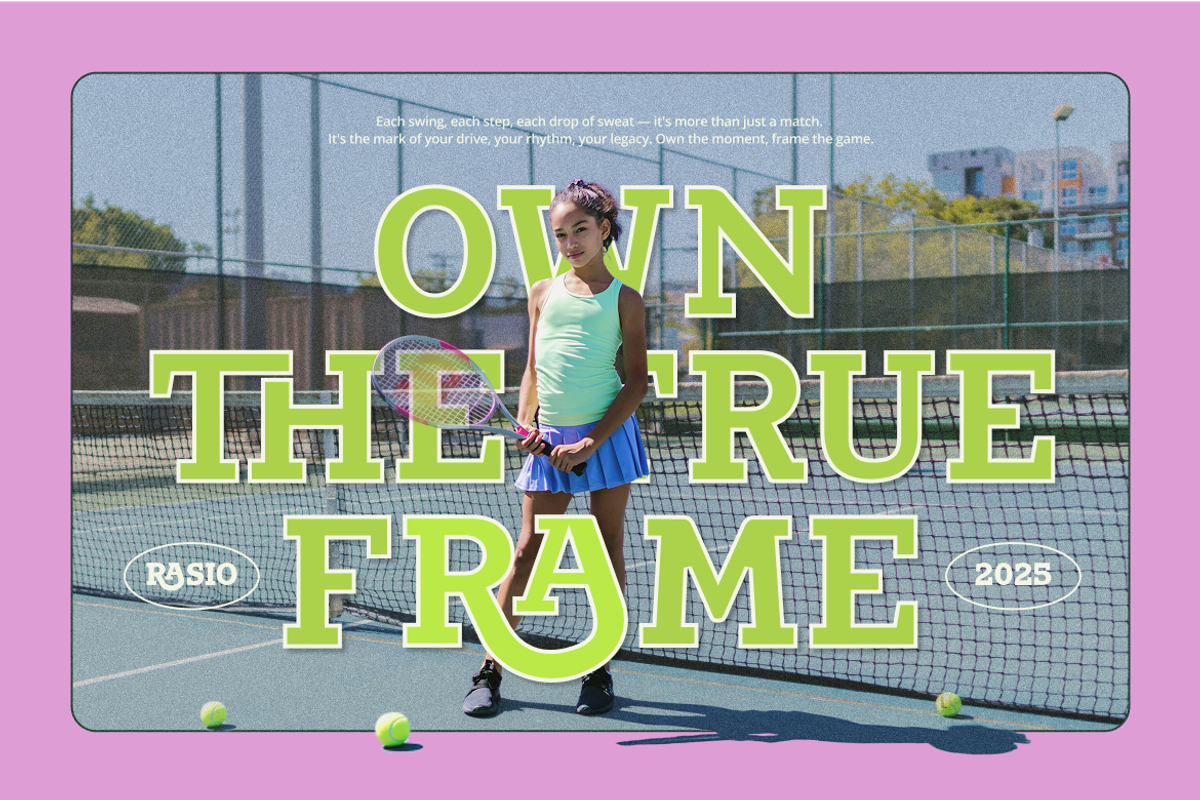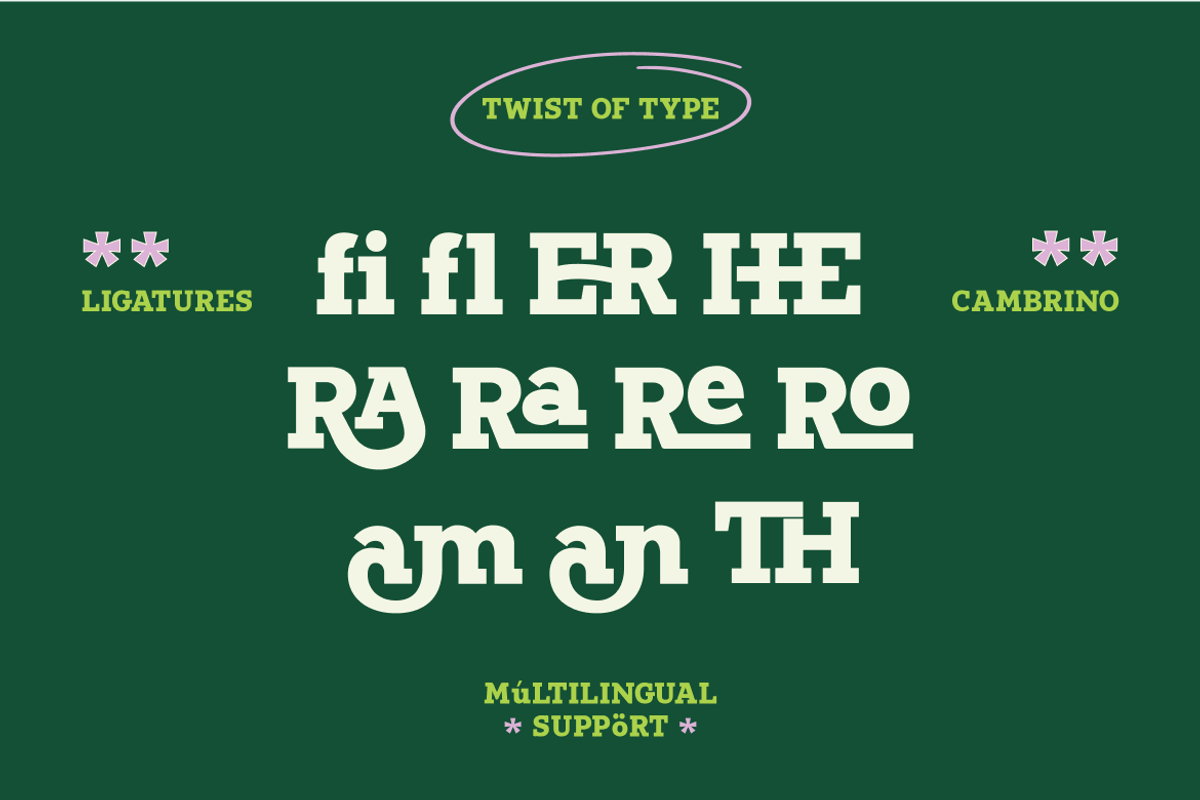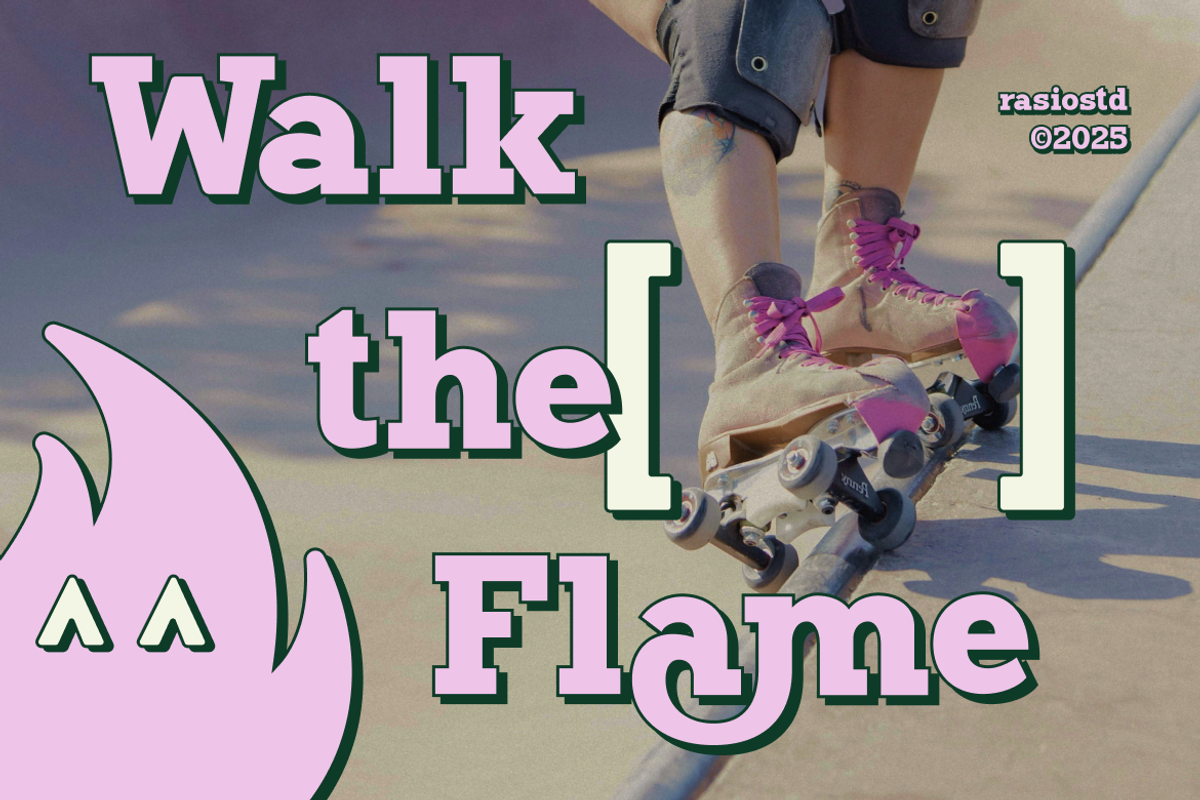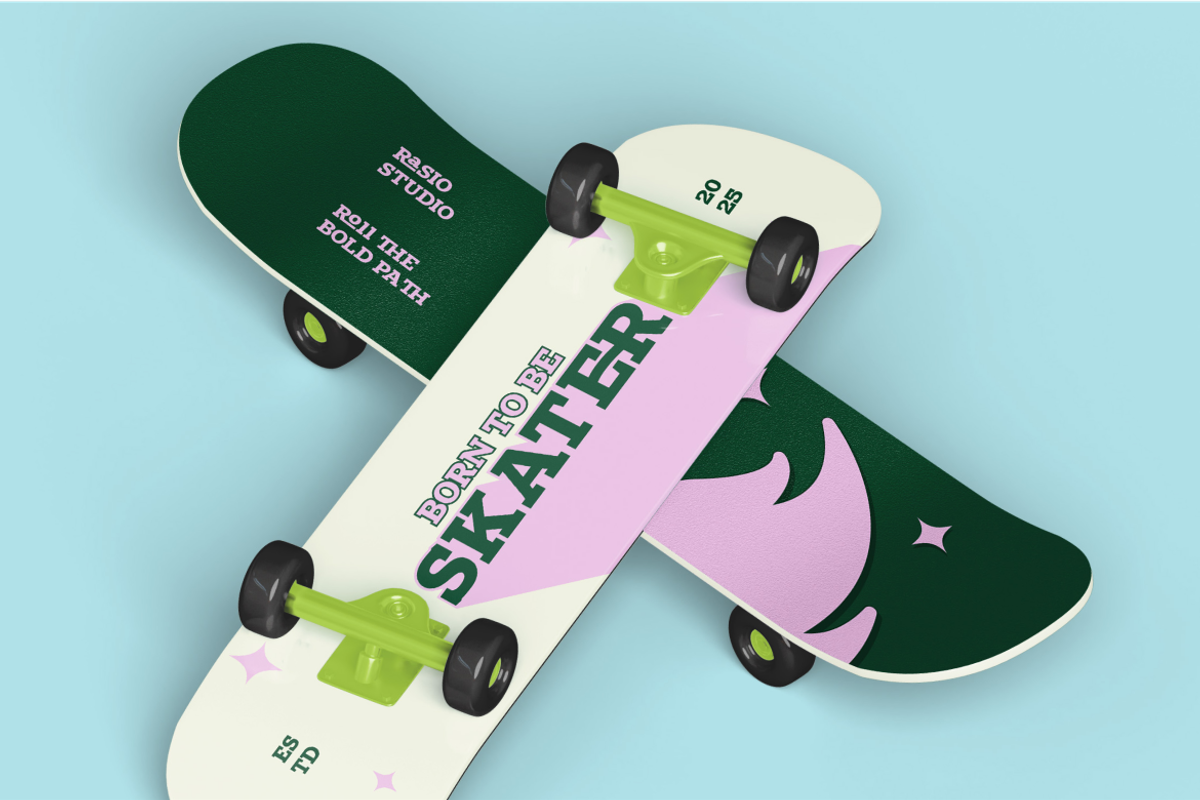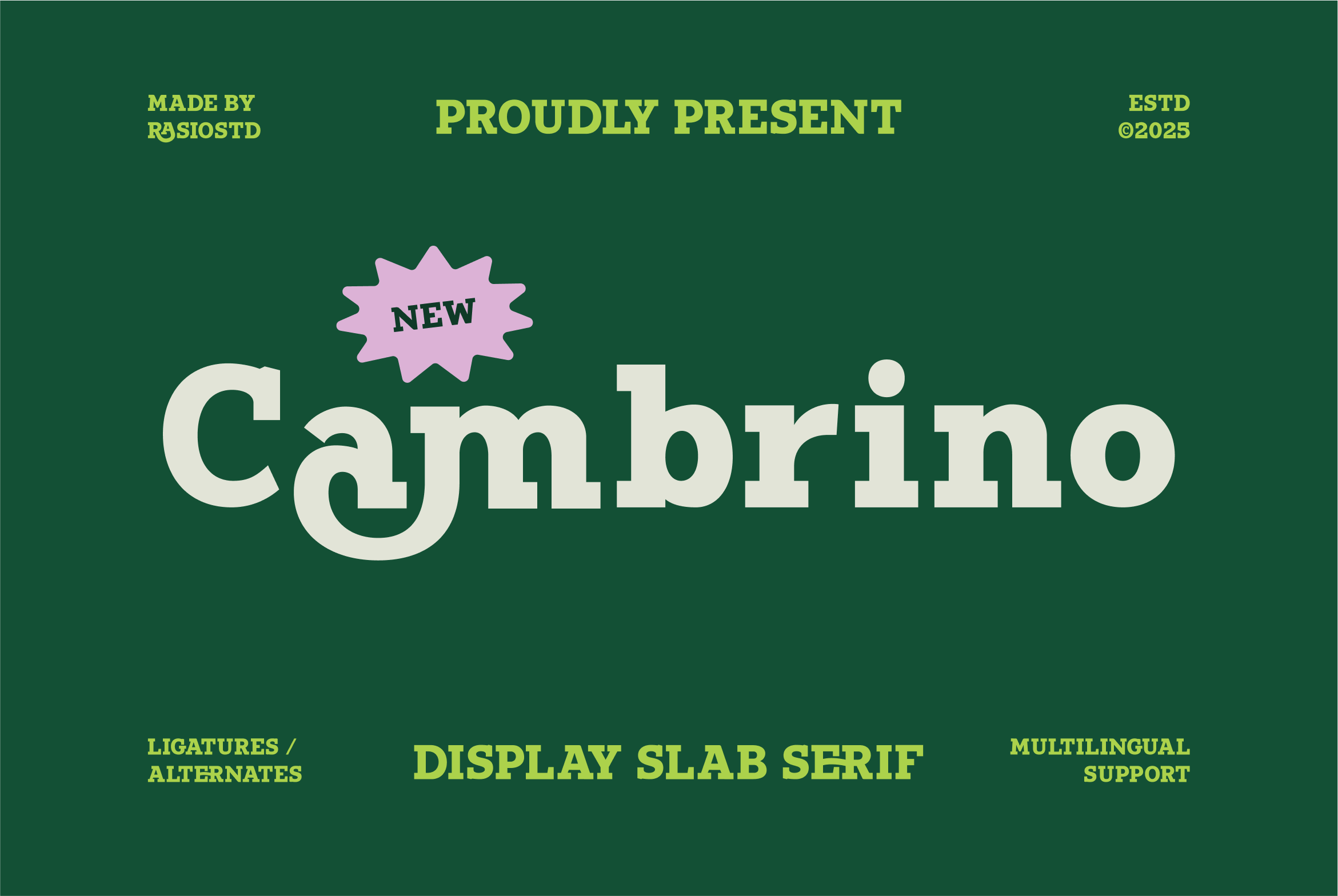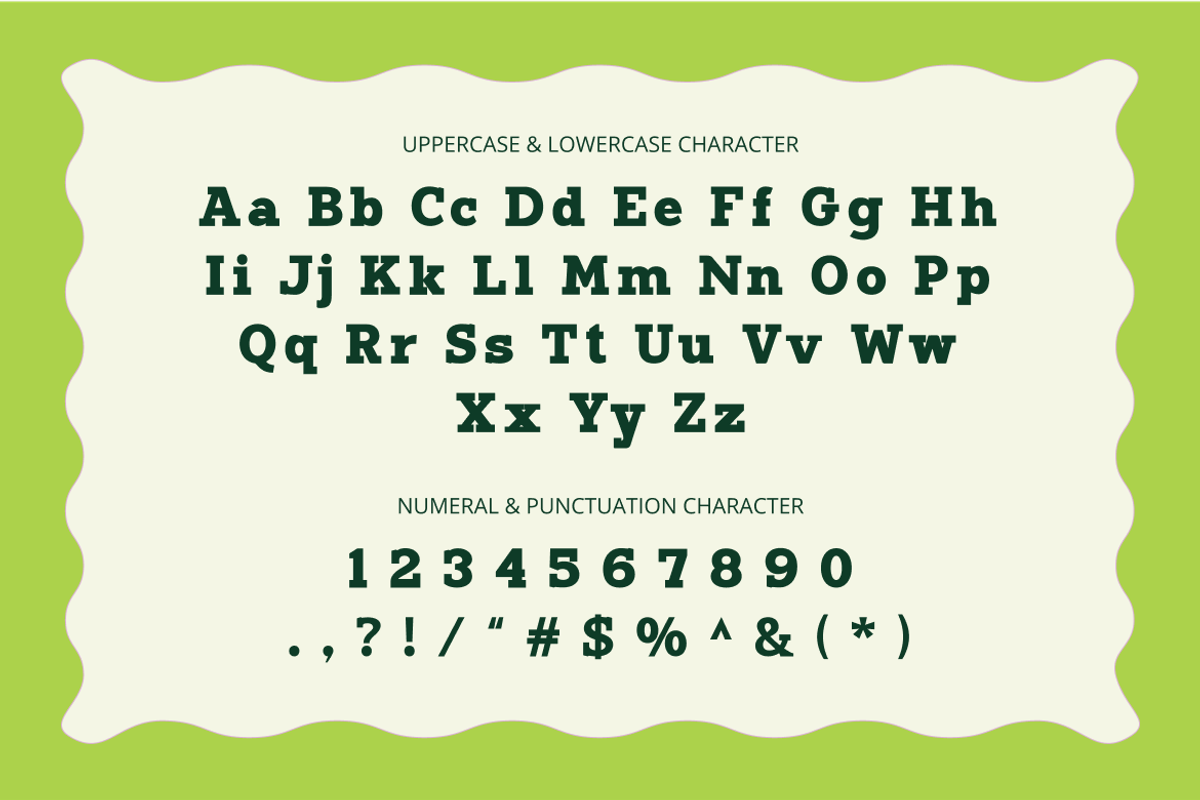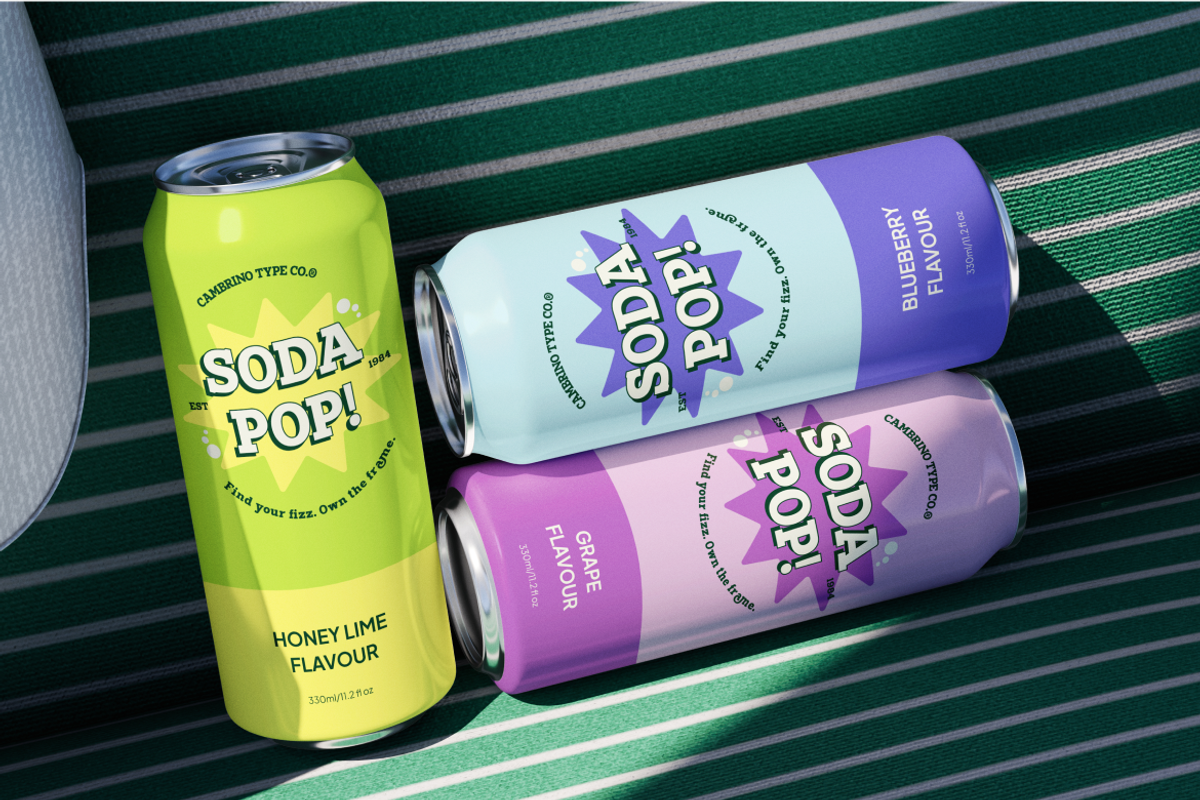
Cambrino Display Slab Serif Font
Cambrino showcases a bold slab serif typeface with thick strokes, solid structure, and confident letterforms that deliver strong visual presence. Its retro-inspired shapes and soft curves create a warm, approachable tone while maintaining clarity and readability at large sizes. The font includes uppercase, lowercase, numerals, punctuation, ligatures, and multilingual support.
Relevance and Use Cases is perfect for bold brand identities, lifestyle and fashion campaigns, sporty merchandise, poster headlines, packaging design, editorial covers, café or streetwear branding, social media graphics, and any creative project that needs a strong, friendly, and retro-inspired typographic voice.
- Bold slab serif construction with thick strokes for strong visual impact
- Retro-inspired letterforms with soft curves that feel friendly and expressive
- Solid, chunky proportions for powerful and confident headlines
- Balanced weight distribution for clear readability at large sizes
- Spacious spacing and sturdy shapes for clean, eye-catching display typography
- Brand identity systems that need a bold, confident, and memorable voice
- Posters, headlines, and hero typography that demand strong visual impact
- Packaging and labels with a retro, vintage, or handcrafted aesthetic
- Editorial covers, merchandise, and lifestyle graphics with expressive personality
- Social media content, campaigns, and promotions that require fun, eye-catching type